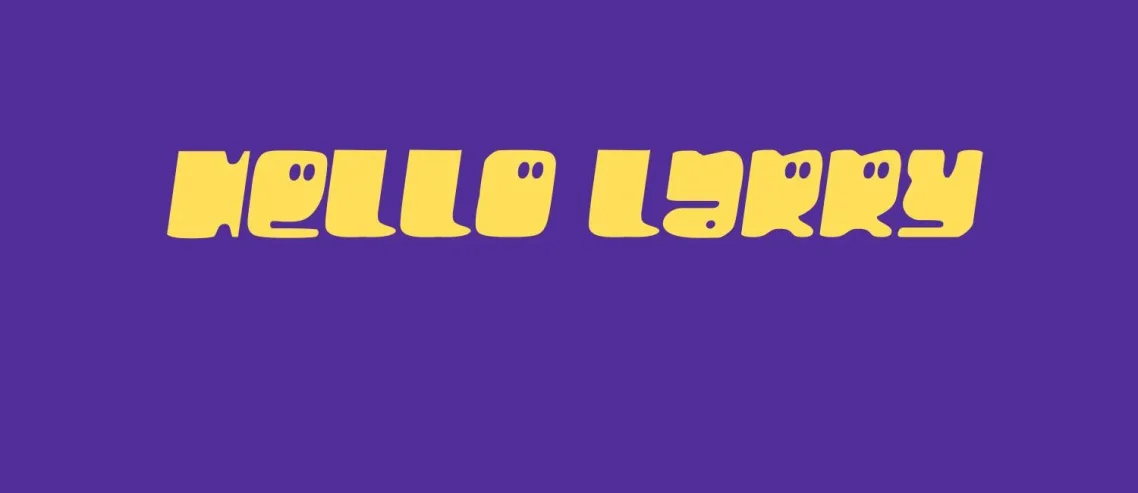
Hello Larry Font it has modern, cute, extra bold, and unique characters. This typeface comes from the fancy font family with a touch of groovy font family. The characters of this charming font are suitable to utilize for short text.